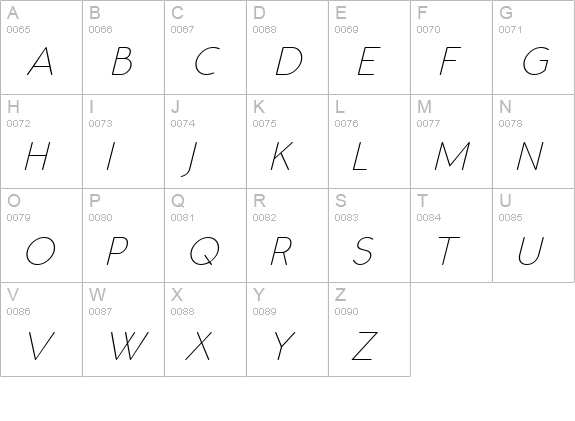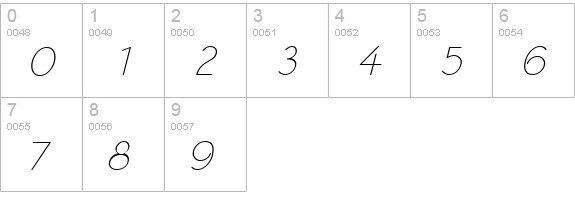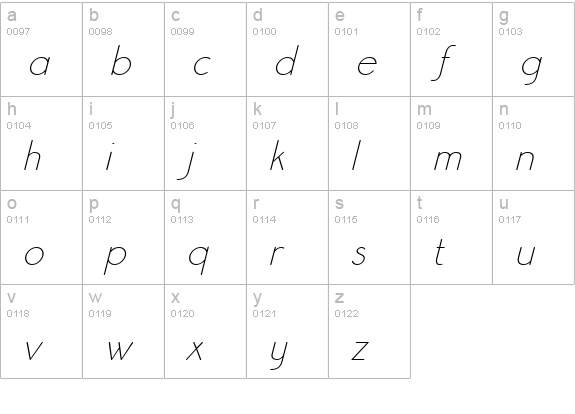
Register Sans BTN Lt Oblique Font Details
Register Sans BTN Lt Oblique is a distinctive, italic variant in the Register typeface family \xE2\x80\x94 well suited to design and typography projects.
Register Sans BTN Lt Oblique is a stylish and modern font that adds a touch of elegance to any design project. With its sleek, slanted form and clean lines, this font is perfect for creating eye-catching headlines, logos, and business cards. The oblique style of Register Sans BTN Lt adds a unique twist to traditional sans-serif fonts, giving your designs a contemporary and sophisticated look. Its subtle slant adds a sense of movement and dynamism, making it perfect for conveying a sense of energy and forward-thinking. One of the best things about Register Sans BTN Lt Oblique is that it is freely available to download at FontsMarket.com. This means that you can use this stunning font in your personal and commercial projects without having to worry about any licensing fees or restrictions. Whether you're designing a website, creating promotional materials, or crafting a new brand identity, Register Sans BTN Lt Oblique is the perfect choice. The versatility of this font is truly remarkable. It looks equally stunning in both large and small sizes, making it suitable for a wide range of applications. The bold and clear letterforms ensure that your message is always legible, while the oblique style adds a touch of flair and personality. Whether you're a professional designer or a typography enthusiast, Register Sans BTN Lt Oblique is a must-have font in your collection. Its sleek and modern aesthetic, combined with its freely available download, makes it an invaluable tool for any design project. So don't miss out on this opportunity to elevate your designs with Register Sans BTN Lt Oblique, available for free download at FontsMarket.com.